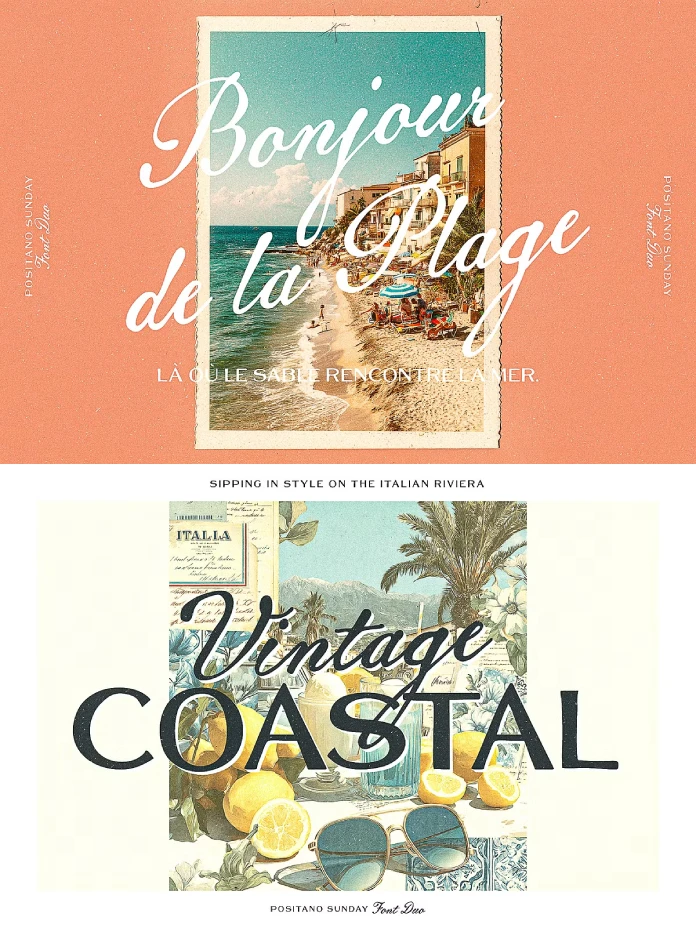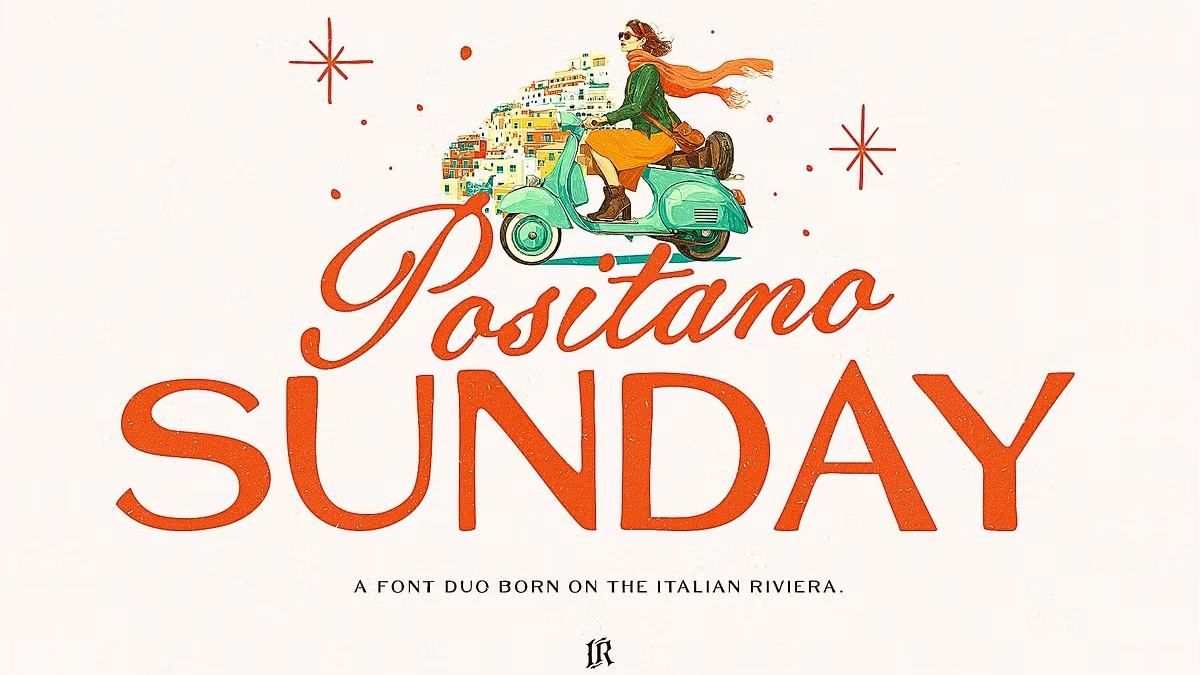
Capture the Soul of the Italian Riviera in Your Designs with the Positano Sunday Font Trio.
In a design landscape saturated with fleeting trends, the search for typography with timeless character is more relevant than ever. Designers need typefaces that do more than just communicate a message; they need fonts that tell a story and evoke a feeling. This is where the Positano Sunday font trio by Ivan Rosenberg enters the conversation. This collection is not merely a set of fonts; it is a carefully curated typographic system. Consequently, it offers a complete aesthetic inspired by the sun-drenched Italian coast. This article explores the unique charm of the Positano Sunday font trio. Furthermore, it will show you how to leverage its personality to create truly memorable designs.
What is the Positano Sunday Font Trio?
The Positano Sunday font trio is a package of three distinct yet complementary typefaces. Together, they capture the carefree spirit of a Sunday on the Italian Riviera. Think of vintage travel posters, charming café menus, and the effortless style of Mediterranean life. This font pack beautifully blends retro nostalgia with modern elegance. In fact, it provides everything you need to build a cohesive and compelling visual identity right out of the box. The spirit of Positano Sunday is joyful, relaxed, and undeniably stylish.
The Anatomy of a Coastal Dream: A Closer Look
Understanding the individual components of the Positano Sunday font trio is key to unlocking its full potential. Each font serves a specific purpose. However, they are designed to work in perfect harmony. How can you combine them for maximum impact?
Retro Sans: The Bold Foundation
At its core, Retro Sans provides a strong, clean foundation. This bold sans-serif typeface carries a distinct nostalgic vibe reminiscent of the 1960s. Its clean lines and confident posture make it perfect for headlines and logos. Moreover, it works beautifully for any text that needs to command attention without feeling overpowering. Retro Sans establishes a clear and stylish base for your designs.
Script: The Personal Touch
Next, the Script font introduces a lively, human element. This spirited, handwritten typeface adds warmth and personality, creating a beautiful contrast with the structured Retro Sans. Use it to convey a sense of authenticity and charm. For instance, it is ideal for taglines, accent words, or social media quotes. The script feels personal and inviting.
Outline Sans: The Creative Layer
Finally, Outline Sans offers a stylish twist. This is an outline version of the bold Retro Sans. It provides an excellent tool for creating visual interest and creative layering. You can use it to add a touch of modern sophistication to your headlines. Or, you can layer it with the solid version for a dynamic, dimensional effect. This font encourages creative experimentation.
Why Your Next Project Needs Positano Sunday
So, why should you consider the Positano Sunday font trio for your work? The primary advantage lies in its built-in versatility and cohesion. Font pairing can be a time-consuming challenge for any designer. This trio eliminates the guesswork. It delivers a professionally matched set that ensures your designs look polished and harmonious. Furthermore, its unique personality helps brands stand out. In a sea of minimalist sans-serifs, Positano Sunday offers a narrative of warmth, nostalgia, and laid-back luxury. It gives your project a distinct voice.
Putting Positano Sunday to Work: Practical Applications
The true beauty of the Positano Sunday font trio is its adaptability across a wide range of projects. It provides a flexible toolkit for nearly any creative endeavor.
For Café and Restaurant Branding
Imagine a new seaside café. The Positano Sunday font trio is the perfect choice for its branding. Retro Sans can be used for the main logo and menu headings. The Script font can highlight daily specials or create a welcoming tagline on the window. Outline Sans could add a stylish touch to packaging for coffee beans or tote bags. The result is an inviting and authentic atmosphere.
For Lifestyle and Travel Brands
Lifestyle brands that focus on travel, artisan goods, or coastal fashion can also benefit greatly. Use Positano Sunday to design vintage-inspired posters for a travel agency. Create elegant packaging for a line of organic soaps or olive oils. Its aesthetic perfectly aligns with products that value craftsmanship and a relaxed, aspirational lifestyle.
For Digital Content and Social Media
Content creators can use the Positano Sunday font trio to build a recognizable online presence. The fonts are highly readable and visually engaging, making them ideal for social media graphics, blog headers, and YouTube thumbnails. The trio’s cohesive nature ensures that all digital content feels connected and professionally branded.
A Design Critic’s Perspective
From my personal viewpoint, the success of the Positano Sunday font trio lies in its emotional resonance. It does more than just look good; it makes you feel something. It transports you to a place of sunshine, leisure, and simple elegance. Ivan Rosenberg has not just created fonts; he has bottled an experience. The trio strikes a perfect balance between nostalgic charm and contemporary usability. It feels both familiar and fresh. What story do you want your typography to tell? If the answer involves warmth, authenticity, and effortless style, then Positano Sunday is a compelling choice.
Ultimately, the Positano Sunday font trio is a powerful tool for any designer looking to infuse their work with personality and character. It is a comprehensive system that streamlines the design process while delivering a high-impact, professional result. Are you ready to bring a touch of Italian sunshine to your next project? This font family might just be your perfect solution.